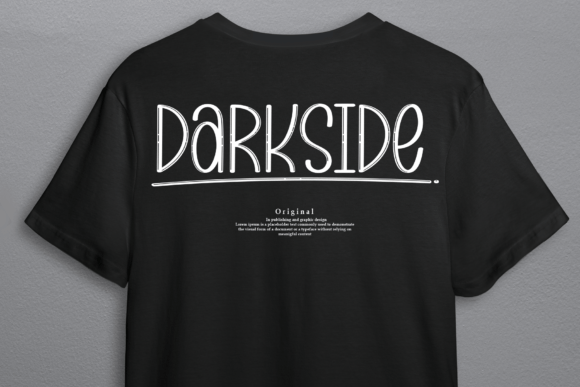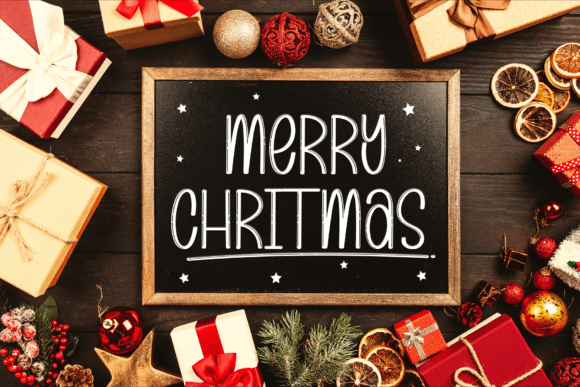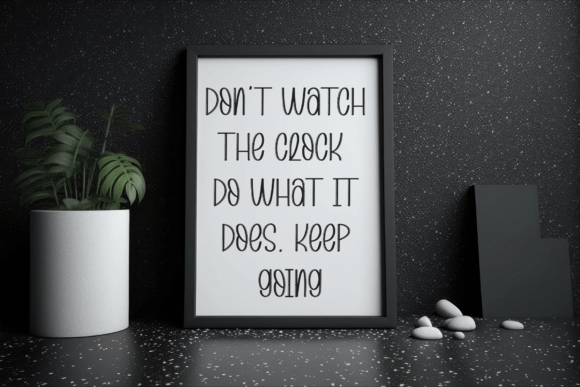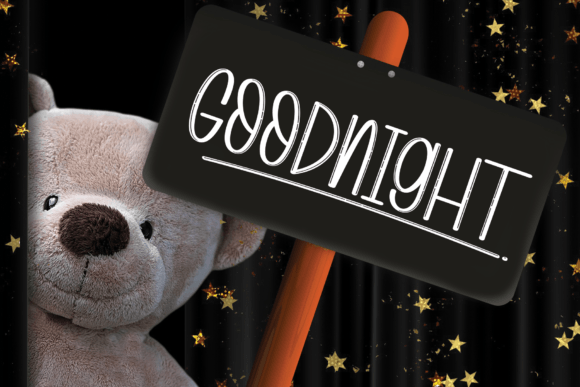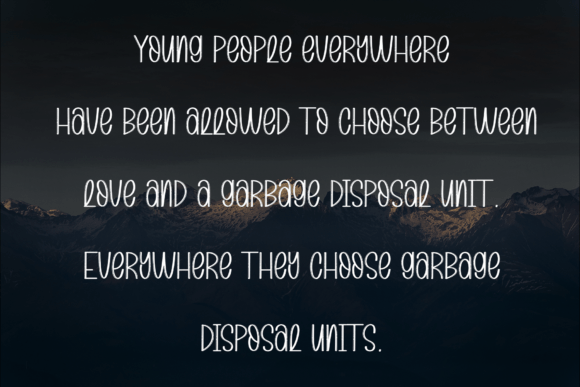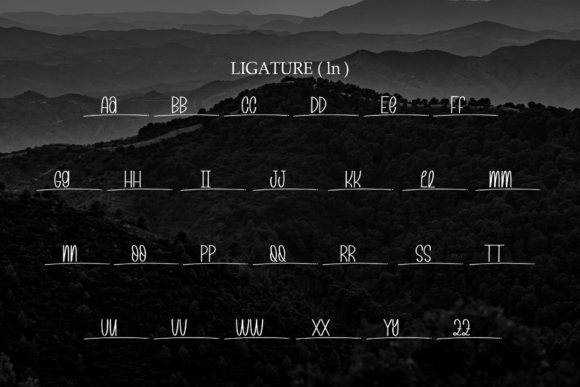
Introduction to Hillmount Font
Do you remember the thrill of finding that perfect font for your creative project? The one that brings your design to life and adds a personal touch? For many designers, this moment is a game-changer. It’s the difference between a good design and a great one. And that’s exactly what we’re excited to share with you today – the Hillmount Font. This sweet and friendly handwritten display font is a design resource that’s sure to put a smile on your face.
Hillmount Font: A High Quality Design Resource
- Designed with a unique and elegant style, Hillmount Font is perfect for creating visually appealing designs.
Honest Review: Hillmount Font
- ✨ Unique and elegant design style that adds a touch of sophistication to any project
- ⚠️ Limited font sizes and styles, which might restrict its use in complex projects
- ⚠️ Not ideal for projects requiring a wide range of font variations
Overall, I’m impressed with Hillmount Font’s potential. While it may not be a one-size-fits-all solution, it’s an excellent choice for designers seeking a high-quality, elegant font for their creative projects. With some careful planning and consideration, Hillmount Font can be a valuable addition to your design arsenal.
Tips for Getting the Most Out of Hillmount Font
Use the Hillmount Font on a transparent background to create a modern and sleek design. Experiment with different font sizes and styles to add visual interest to your design. You can also pair the Hillmount Font with other high-quality design resources to create a cohesive and professional look.
Common Use Cases for Hillmount Font
The Hillmount Font is ideal for use in creative projects such as logos, brochures, and business cards. It is also suitable for use in presentations, reports, and other business documents. With its high-quality design and transparent background, the Hillmount Font is a great choice for designers and non-designers alike.
Q: Is the Hillmount Font suitable for high-resolution designs?
Yes, the Hillmount Font is designed to be high-quality and scalable, making it suitable for use in high-resolution designs. The font’s crisp lines and smooth curves ensure that it looks great at any size, from small text to large headings.